The font in mathematical papers of Elsevier is elegant, as the figure below shows. I'd like to know the name of this font, that contains paconte and the command to call it.
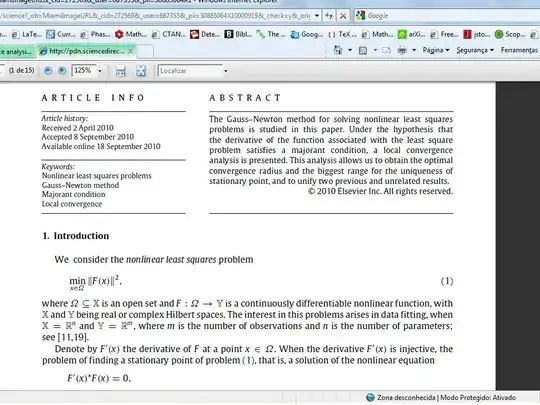
For those who have access to a link to the PDF article is this.
I suspect that this font is protected by copyright and therefore there is a free package it. If this is the case then I would like a font in a free package available.
Is that possible?
• So your question is whether you can duplicate the title? That is, the ARTICLE INFO and ABSTRACT? – Werner Feb 26 '12 at 23:47
@Werner: I think the question is "What is this font?" – qubyte Feb 26 '12 at 23:54
• The very first thing to do: In AcroReader right click on the document and go to the Document Properties->Fonts tab. It will show you the fonts used in the document t1-gul-.... are the ones that you are after. @JohnBaez Welcome to TeX.SX even if you were just ranting by :) – percusse Feb 27 '12 at 19:40
@Ruben - I don't understand why this posting was closed as a duplicate of some other query, which actually appears to have been posted somewhat later than the present, now-closed query. For sure, none of the answers provided under that other posting help solve the OP's question, which was about the (math, but presumably also text) font that is in use at some (but not all) journals in the Elsevier group of journals. – Mico Sep 19 '17 at 09:57
I'd like to see this posting re-opened, as the questions raised above go beyond the standard "what font is this" query. – Mico Jan 16 '18 at 02:01
• Recently it appears that Elsevier has changed the font in many of its journals, from the mentioned Gulliver to one almost perfectly matching the free font Charis SIL. In fact, Adobe Acrobat reveals that Charis SIL is used in some portions of the heading. I have made a comparison here: https://i.imgur.com/1kYpNZT.png
In light of this, I believe this question should be re-opened, as the current answers may be outdated and future people finding this question could benefit from the knowledge of Charis SIL being available as an alternative.
@Mico (forgot to mention) Also, math portions appear to be typeset now with the free STIX 2.0 font, and thus the user could use both Charis SIL and STIX 2.0 with XeLaTeX to match Elsevier typesetting choices, if he/she so desires, something that was not possible when they used the proprietary Gulliver. – JorgeGT Mar 22 '18 at 12:21
According to some information on the webpage The elsarticle LaTeX document class, the font used by most Elsevier journals is called Gulliver. The designer of this font is Gerard Unger.
More information about this font may be found at this website. This font is proprietary, and I'm not aware of any "free" copies of this font. In particular, there's no LaTeX font package that lets you load the Gulliver font.
It's Gerard Unger's Gulliver. Furthermore,
Ownership of Gulliver is a somewhat exclusive business. Unger only sells it through his own site, and at a minimum of twenty licenses a time to “organisations and companies whose printing work will do justice to its space-saving capabilities.”
Try BT Charter as a substitute.
Space saving? I think this journal has saved too much space with the font. The line width is way too long for effortless reading. – Frg Feb 27 '12 at 15:48
"To guarantee Gulliver’s exclusivity, no more than 100 licences will be issued worldwide. Licensees automatically become members of the Gulliver Club." Interesting attitude... – Alexander Apr 20 '13 at 14:58
You can try taking a high definition snapshot of a line or two of the text and see if http://www.whatfontis.com/ or http://www.myfonts.com/WhatTheFont/ can yield you a font that is similar enough. I tried it with the screenshot provided, but the results were less than optimal (the first link provided me with a list of 100 possible matches, but none seemed good enough, and the second one just gave an error).
Given a PDF, one can get a list of its embedded fonts. Doing this on a different Elsevier journal article led me to believe they're using some proprietary commercial fonts (names like AdvEls-ent1, AdvEls-ent2, etc.). Using a better quality image (around 1250 pixels wide containing 19 of the 26 lowercase letters) at both font sites didn't return any perfect matches, though. – Mike Renfro Feb 27 '12 at 01:26
I'm digging out an old question here... I totally agree with your answer: the elsarticle.cls or the cas-dc.cls classes recommended in the Guide to authors of many Elsevier journals (NIM-A and B at least) use STIX Two while the final prints seem to be using Charis for text and STIX for math. – Cedric H. Mar 21 '20 at 17:55
@CedricH. It seems you are correct. I compared the math font of PDF created by Elsevier (2023) compared it with STIX (not stix two). They are almost the same, although there are slight differences. – tetukowski Aug 24 '23 at 10:00